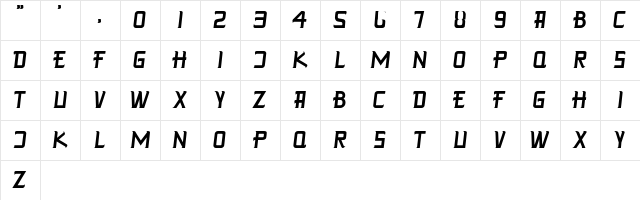
DEFINITE SOUL Regular
| Designer | Artspace 2018 |
Design Context for DEFINITE SOUL Typeface
DEFINITE SOUL offers clean, dependable letterforms without strong stylistic allegiance, making it a practical choice for designers who need flexibility.